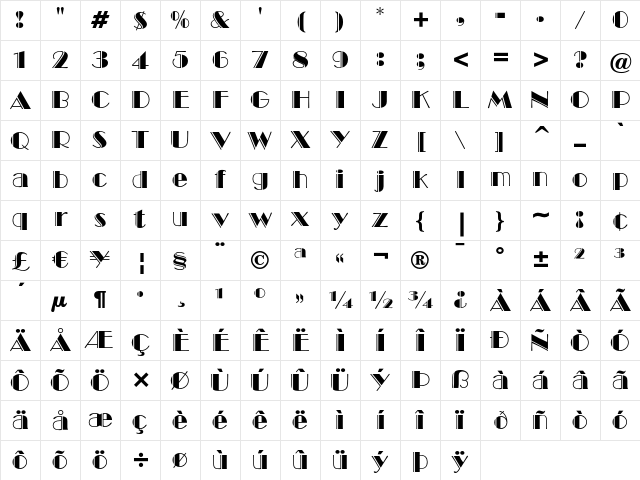
Broadway Engraved
Style: Engraved
Broadway Family
Broadway Engraved
Design Context for Broadway
Broadway is built around its visual character rather than neutral utility - its distinctive forms are designed to make an impression at display sizes.
Font Pairing: Pair with a clean neutral sans-serif for body copy to let Broadway's character lead without overwhelming the composition.
Pro Tip: Use Broadway exclusively at display sizes - it was designed to be seen, not read at length. Let a neutral companion handle body copy.